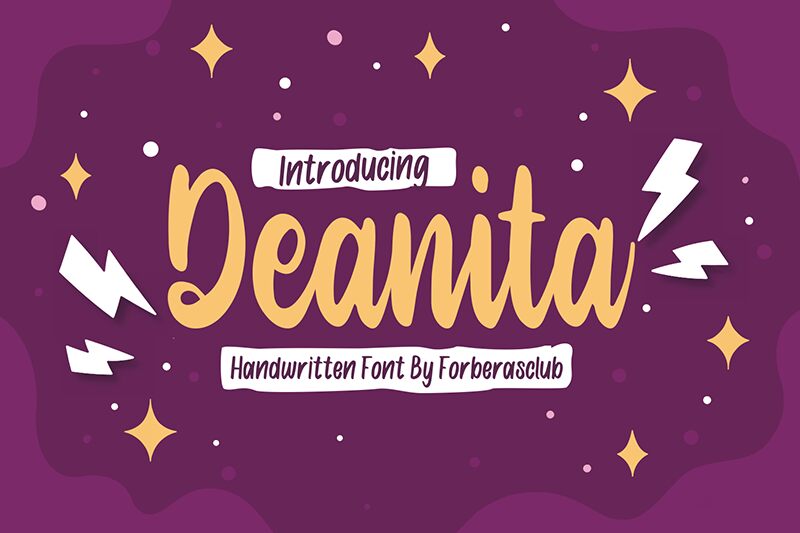
Deanita, a bold and condensed handwritten typeface designed by Forberas Club, adds a touch of personality to any project. Perfect for headlines and titles that need to stand out, Deanita exudes confidence and creativity. Its unique style is versatile enough for branding projects, including logos and packaging designs. Whether you're creating posters or social media graphics, Deanita's bold strokes will capture attention while its condensed width allows for maximum impact in limited space. Don't settle for bland typography; elevate your design with the expressive charm of Deanita.